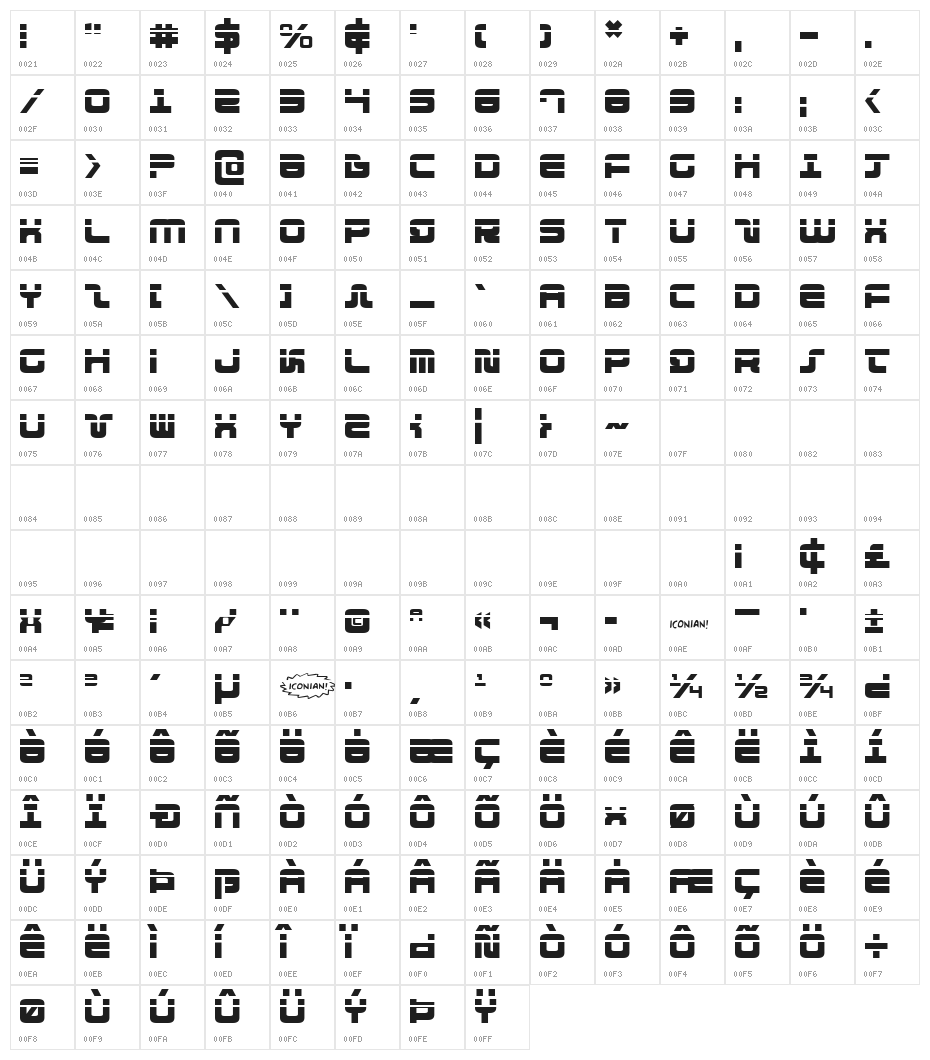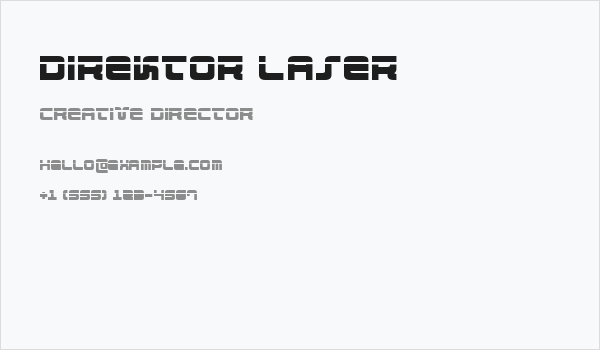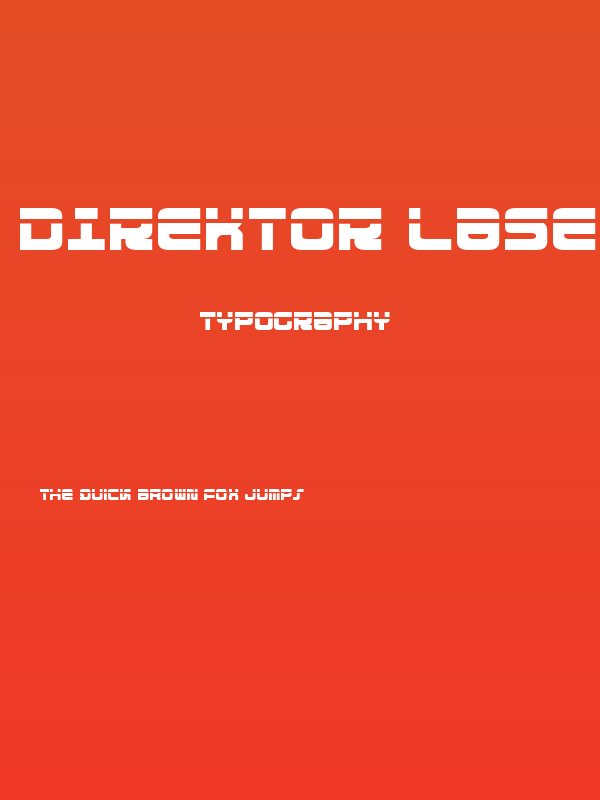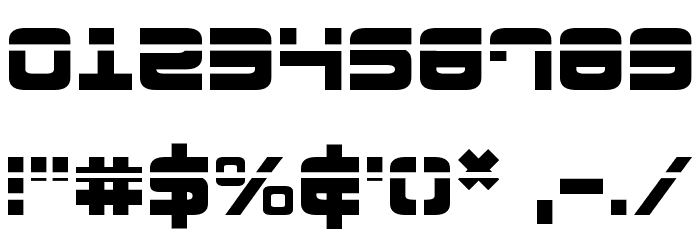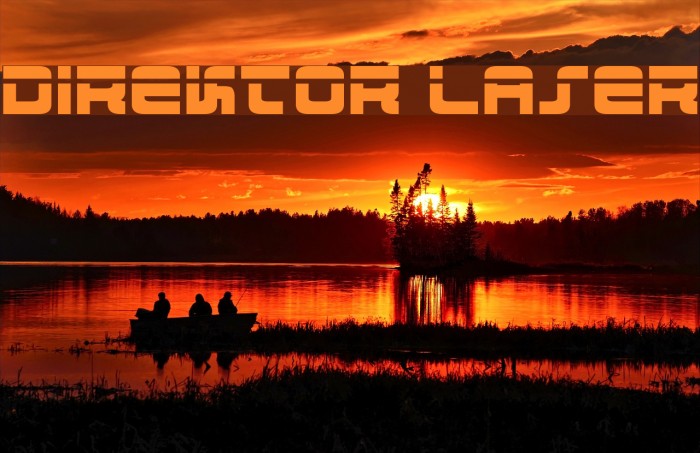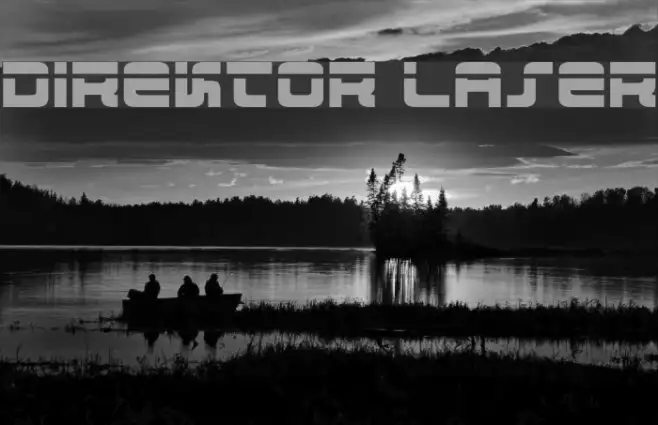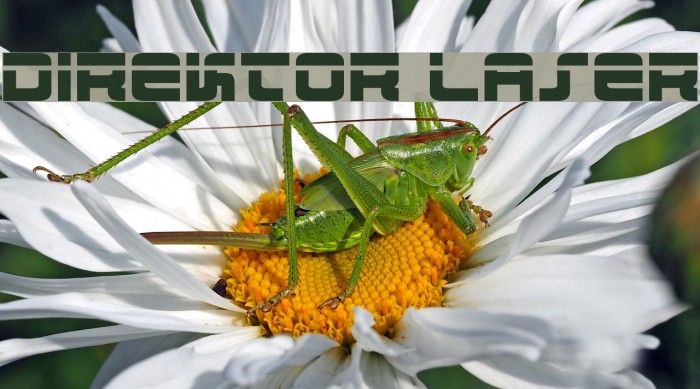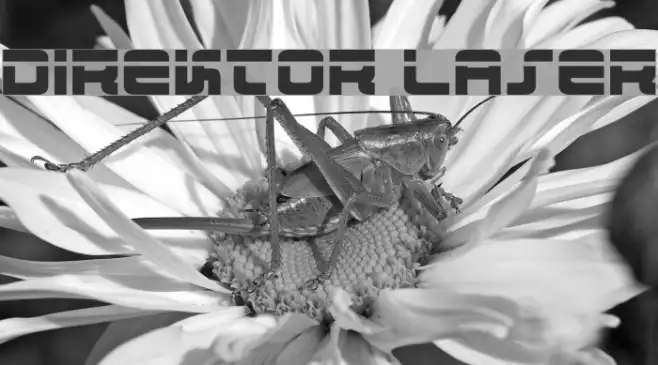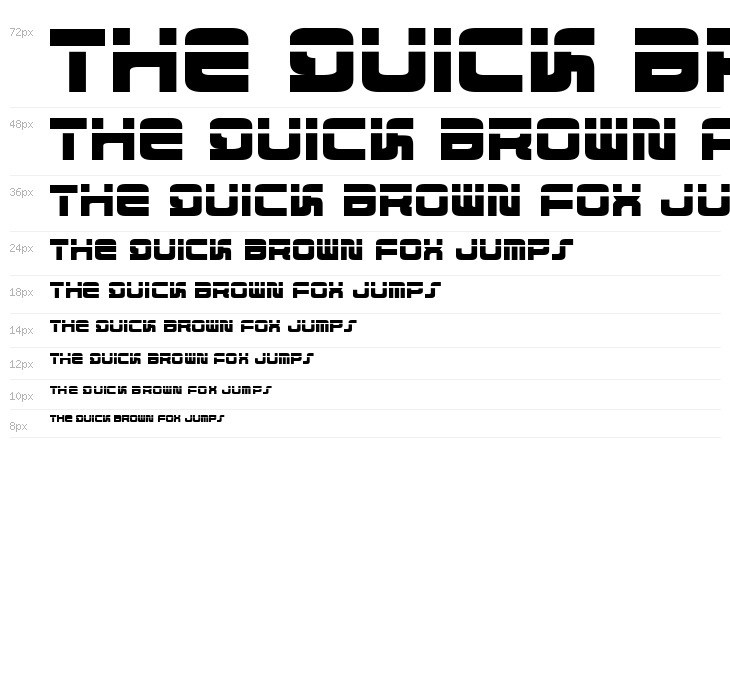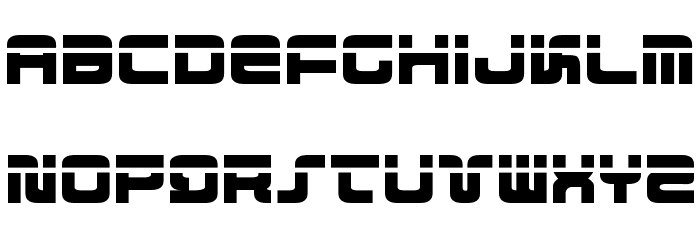
Direktor Laser Font
Direktor Laser Description
This font features a bold, futuristic design with a strong geometric structure. The characters are constructed with solid, block-like forms that convey a sense of strength and modernity. The uppercase and lowercase letters maintain a consistent style, with rounded edges and uniform stroke widths. The numerals and special characters follow the same design principles, ensuring a cohesive look across all elements. The font's unique style makes it stand out, with a slightly condensed width that adds to its compact and impactful appearance.